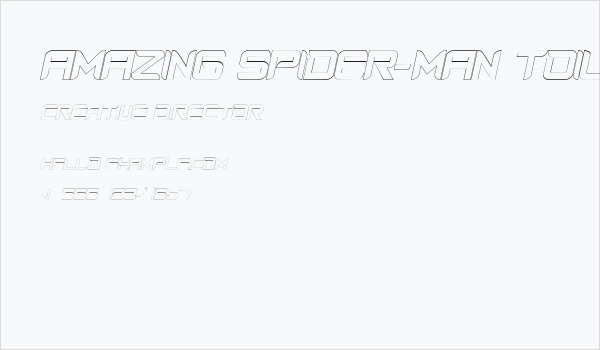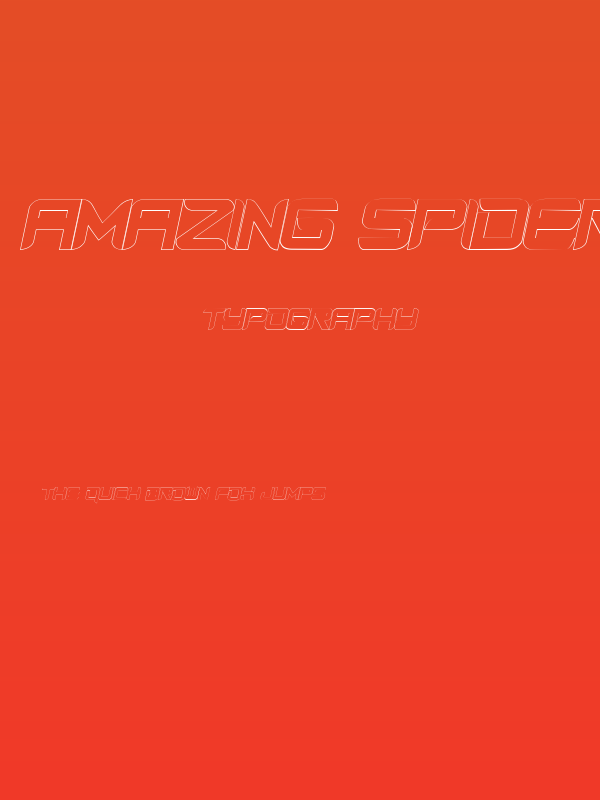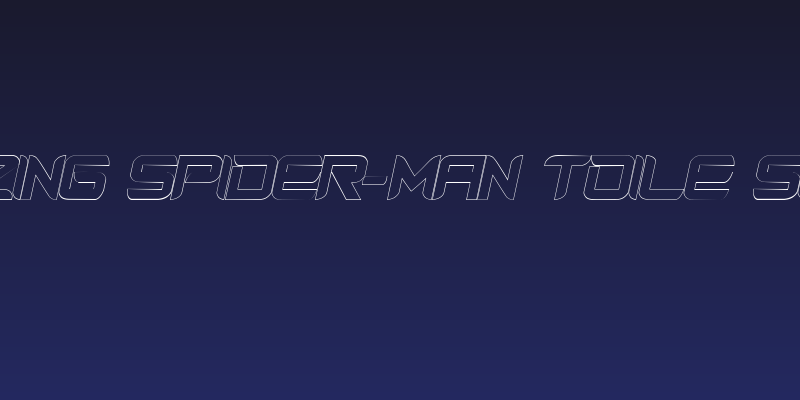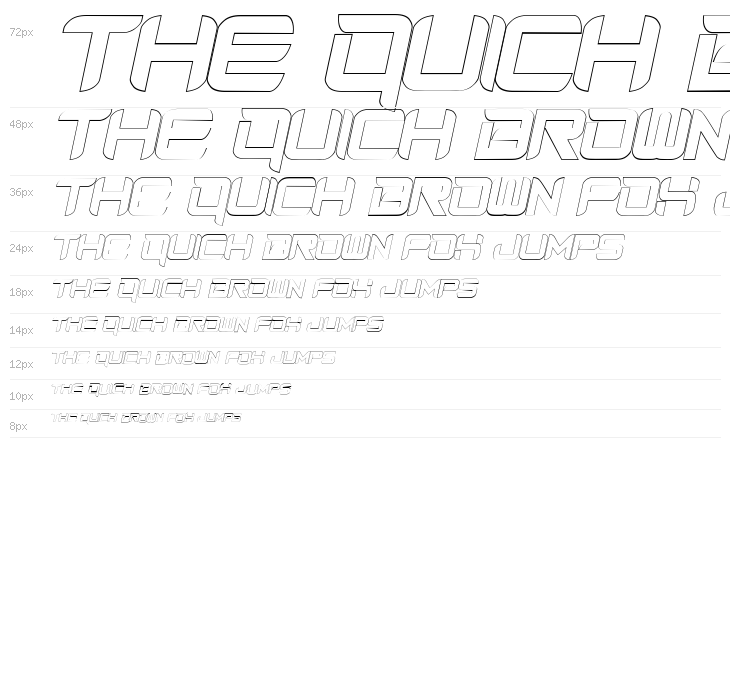
Amazing Spider-Man toile slant Font
Amazing Spider-Man toile slant Description
This font features a dynamic and angular design, characterized by its sharp edges and slanted orientation. The letters are outlined, giving a futuristic and tech-inspired appearance. The uppercase and lowercase letters maintain a consistent style, with a distinct geometric flair. The numbers and special characters follow the same angular theme, ensuring uniformity across all glyphs. The font's unique style makes it stand out, suitable for projects that require a bold and modern aesthetic.
Proposed ProjectsIdeal for sci-fi movie posters, tech company logos, video game titles, and modern branding materials.